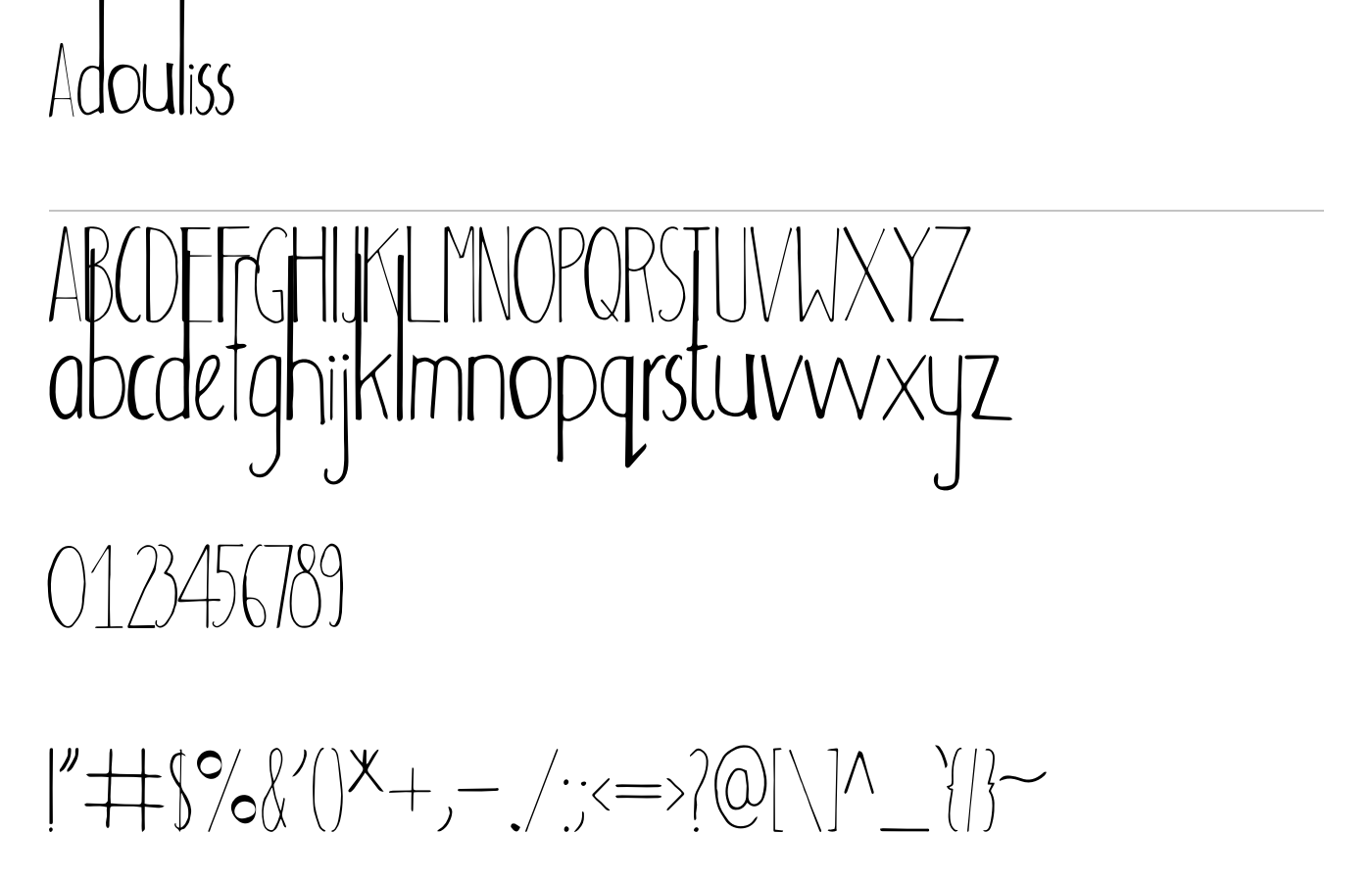
Adouliss is a slender, playful sans serif font characterized by its tall, narrow letterforms and whimsical irregularities, which give it a hand-drawn feel. With its delicate strokes and unique letter shapes, it works best for creative projects, informal branding, and headlines where a quirky, artistic touch is desired. This font adds personality and charm while maintaining legibility in display use.
Adouliss Font